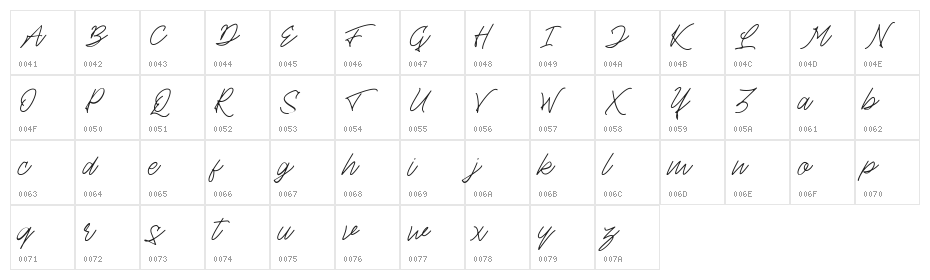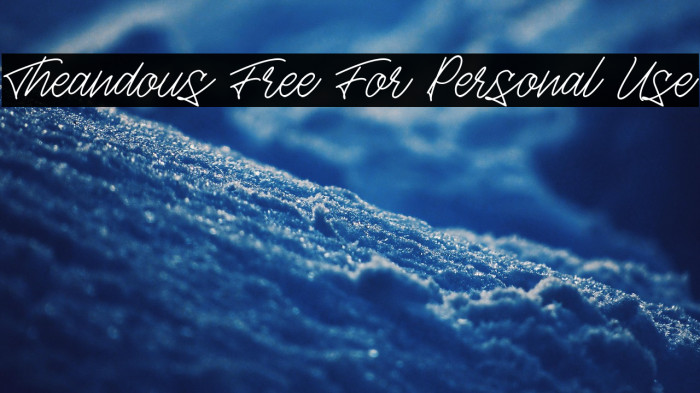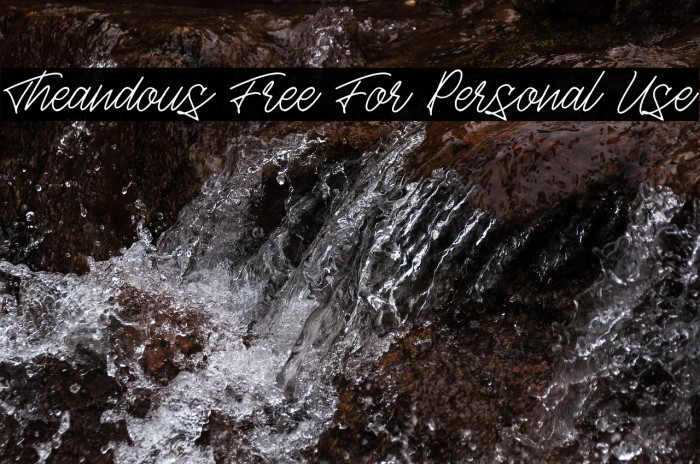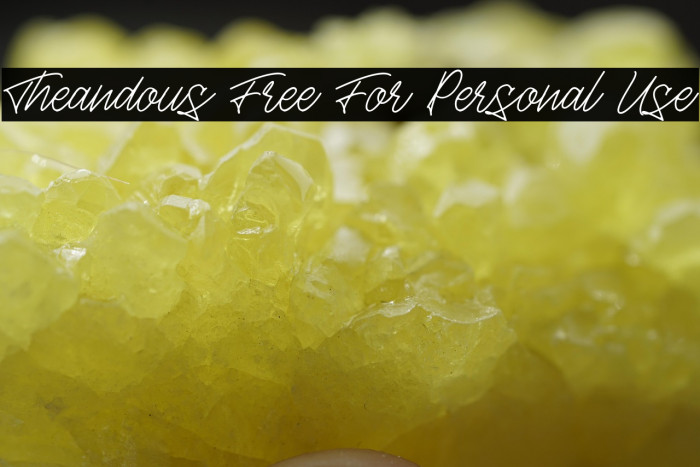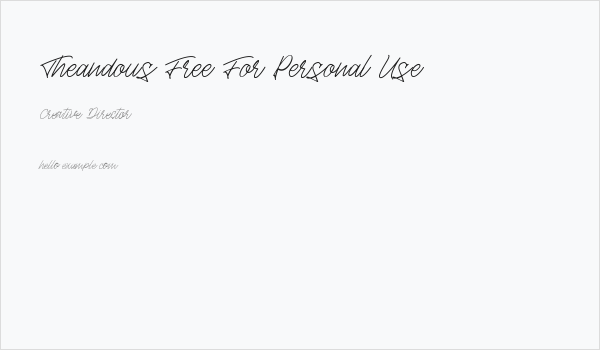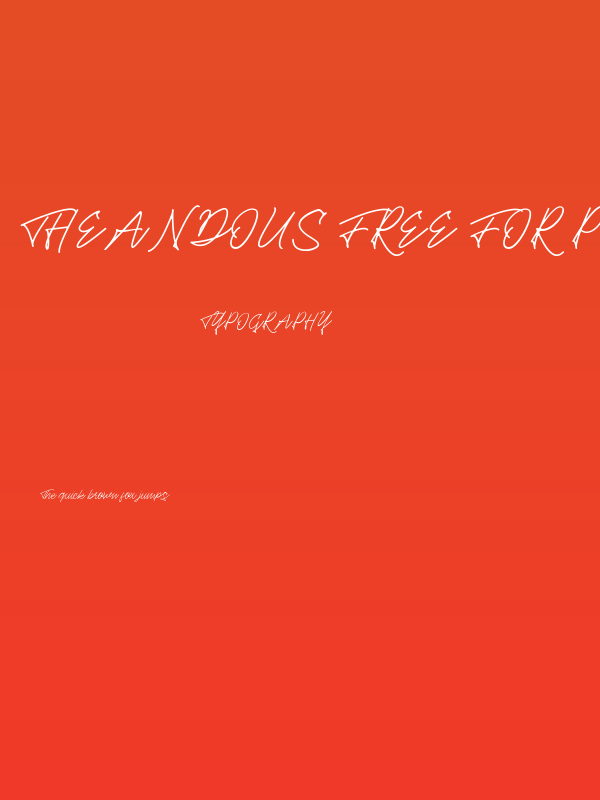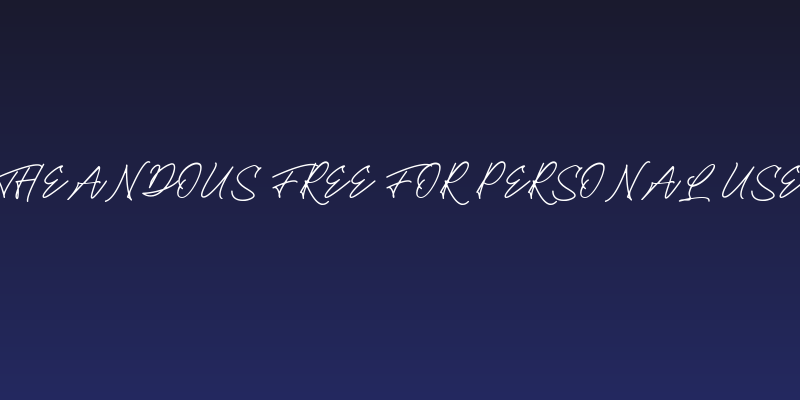
Theandous Free For Personal Use Font
Theandous Free For Personal Use Description
This font features an elegant, flowing script style that mimics the fluidity of natural handwriting. The characters are connected, with each letter seamlessly transitioning into the next, creating a cohesive and harmonious appearance. The strokes are smooth and slightly varied in thickness, adding a touch of sophistication and grace. The uppercase letters are distinctively larger and more ornate, while the lowercase letters maintain a consistent and balanced form. This font exudes a sense of personal touch and creativity, making it ideal for projects that require a handwritten aesthetic.
| Proposed Projects | Ideal for wedding invitations, greeting cards, personal branding, and artistic projects. |